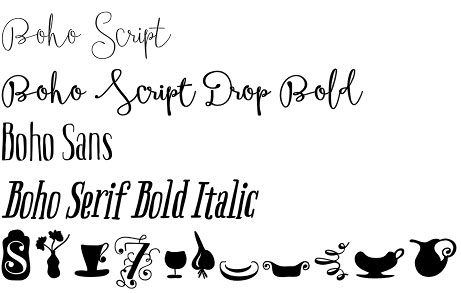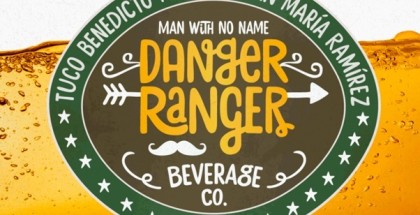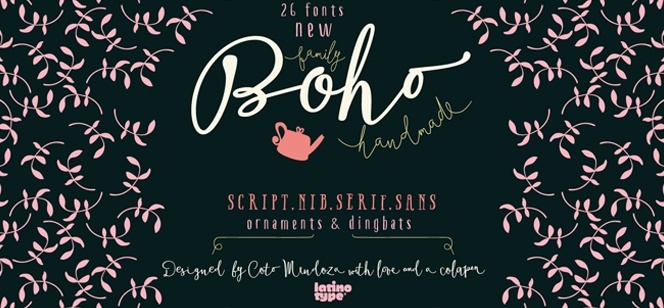
Boho font collection
Boho font collection is the latest hand-crafted typeface by Latinotype. Fully drawn with Cola pen this hot new family is the very first attempt of Coto Mendoza in script design. Free, gestural, artistic and very easy, Boho is developed in 4 different styles – Script, Line, Sans and Serif. Each of them consists of 4 separate weights – Regular, Bold, Italic and Bold Italic which gives you lots of inspiration and really plenty of combinations between these hand-made fonts. The final touch in this amazing collection are two additional fonts – Boho Dingbats and Boho Ornaments. They are fully dedicated to artistic illustrations, icons, images and drawings designed in the same style as the rest of the fonts and are excellent complementary to your Boho typography.
When you think of Boho, think of fun, freshness and freedom, think of art, crafts and authenticity and make sure you get the whole family to find the best combination and custom solutions for your type. Boho is not just a font collection or type platform, not just a powerful typographic tool – Boho is emotion, a spirit and pure positive energy that will make your design more distinguished, desired and attractive. Enjoy Boho, bring fun in your art!
Boho font collection is designed by Coto Mendoza and published by Latinotype. Like we said above, after the debut of her Macarons typeface, Boho is probably the first attempt of Coto in free gestural writing transformed in modern digital fonts. Stay tuned and watch how this must-have-font will soon become a bestseller! Enjoy Boho, but don’t miss the links below to discover many other great titles by Latinotype.